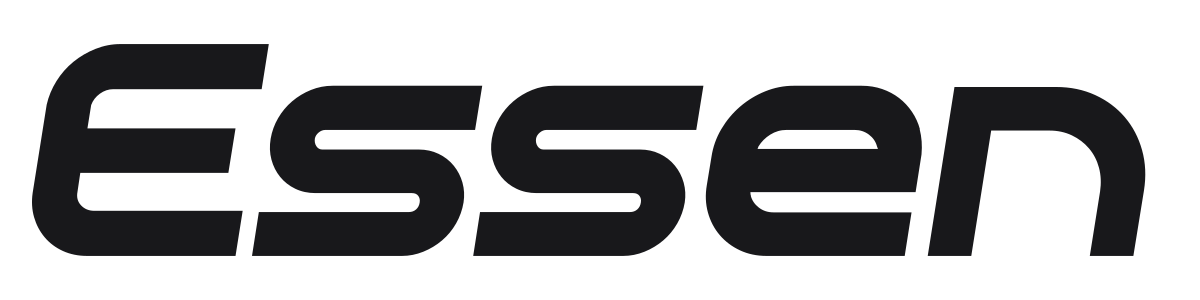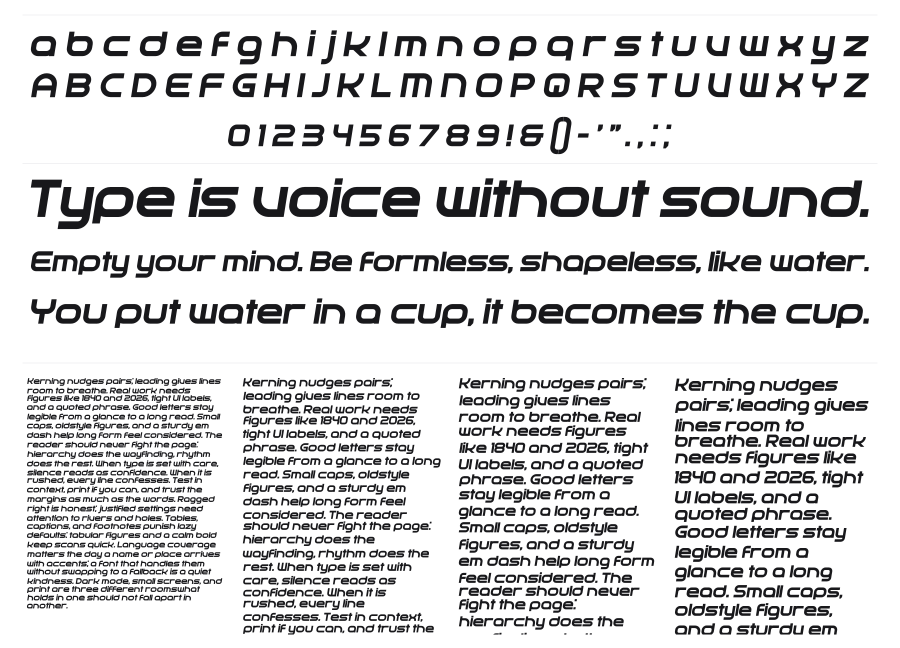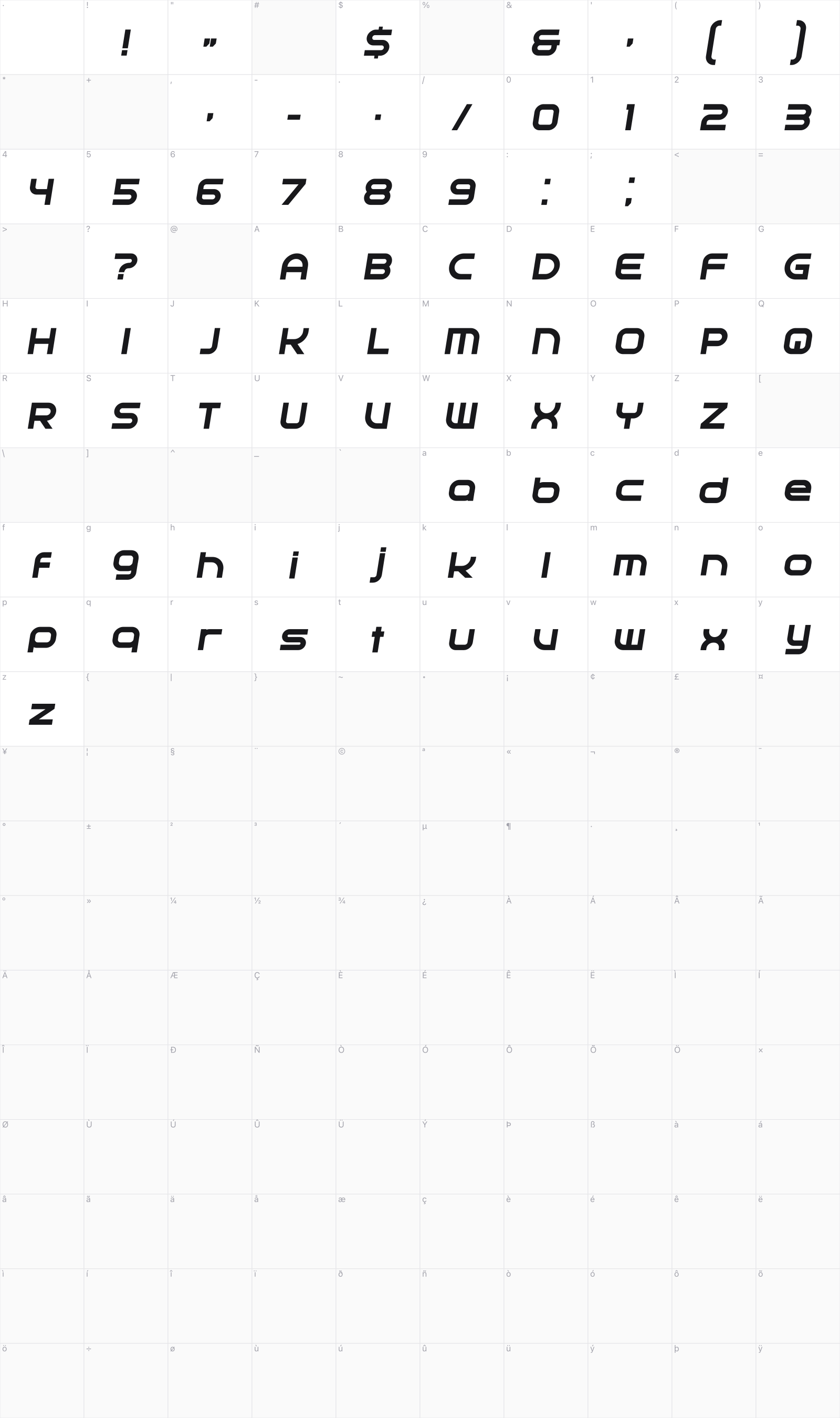
Essen
Essen is a bold geometric sans with a distinctive oblique cut and flat angled terminals that give it a sharp, mechanical edge. The wide, heavy proportions and tight spacing create a sense of speed and forward momentum. It reads strongly at large sizes in logos, headlines, and anywhere a forceful, modern presence is needed.